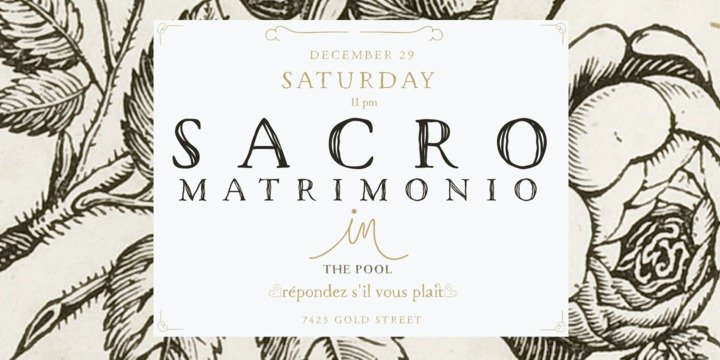
Macarons
The Macarons font family consists of a monoline version, regular and bold weights, and a set of gestural catchwords, which reflects the use of the ruling pen as a freestyle tool. Ornaments and dingbats are also included.
Macarons is a display type based on the classic Garamond typeface. It’s inspired by the foodie culture and the slow food movement, which began as a rebellion against fast food and has now grown to a global scale. Every day, thousands of people around the world take pictures of their food, look for new recipes to try and recover old ones, enjoy wine-pairing, and value locally produced food.